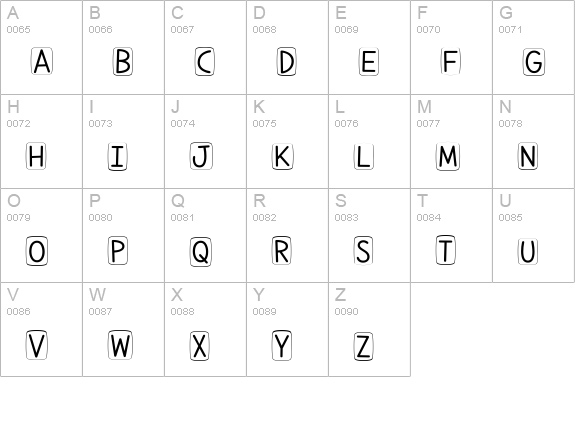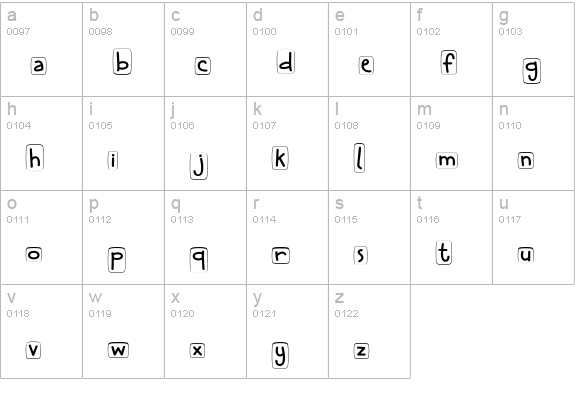
Cheddar Salad BTN Cameo Font Details
Cheddar Salad BTN Cameo font is a charming and whimsical typeface that exudes a playful and friendly vibe. With its unique design and decorative elements, this font is perfect for adding a touch of fun to your design projects. Its bold yet elegant appearance makes it versatile for a wide range of applications, from branding to packaging to invitations. What sets Cheddar Salad BTN Cameo font apart is its versatility and readability, making it suitable for both headlines and body text. Its distinct character shapes and flourishes add a touch of sophistication and personality to any design. Best of all, Cheddar Salad BTN Cameo font is free to download at FontsMarket.com, making it a valuable addition to your font collection. So why wait? Add a dash of whimsy to your designs with Cheddar Salad BTN Cameo font today!